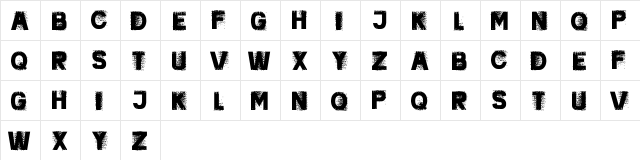
faxmachine Regular Font Preview
faxmachine Regular
Design Context for faxmachine Typeface
faxmachine is a composed and adaptable typeface that performs quietly and consistently across a wide range of design contexts.